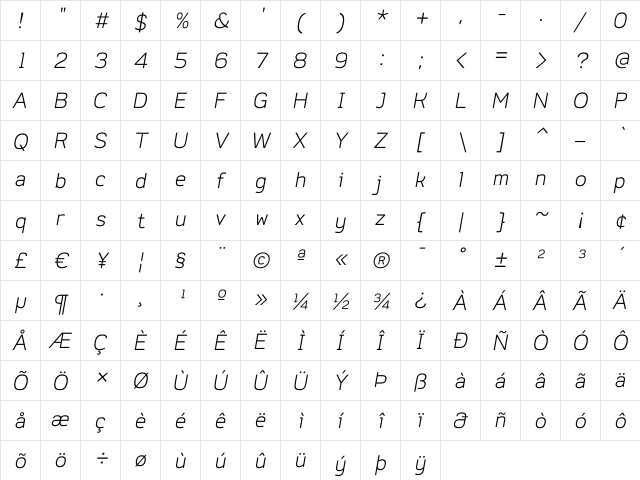
Do Gothic Light Oblique
| Foundry | Anuthin Wongsunkakon |
| Designer | Anuthin Wongsunkakon |
Design Context for Do Gothic Typeface
Do Gothic has the quiet confidence of well-executed sans-serif typography: versatile, unobtrusive, and dependable at any size. The dynamic lean of this cut emphasises speed and emphasis in any layout. Its slender proportions lend an understated elegance to any composition.
A natural fit for high-end product packaging, luxury brand identities, and refined web typography.
Font Pairing: Pair Do Gothic with a medium or bold serif for headlines — the weight contrast creates an elegant, high-end feel.
Pro Tip: Use Do Gothic with generous tracking and line-height for the most luxurious effect — light sans-serifs reward spacious, considered layouts.